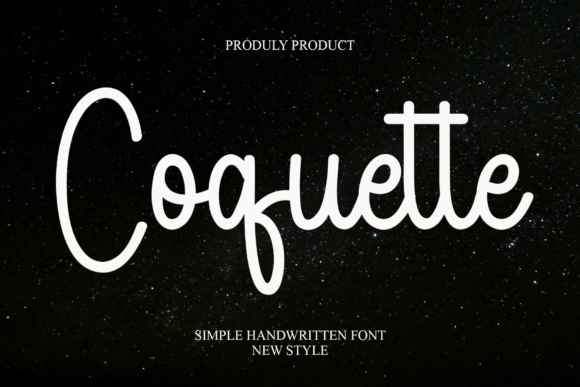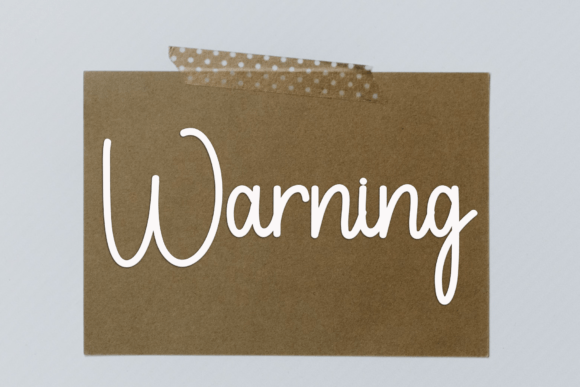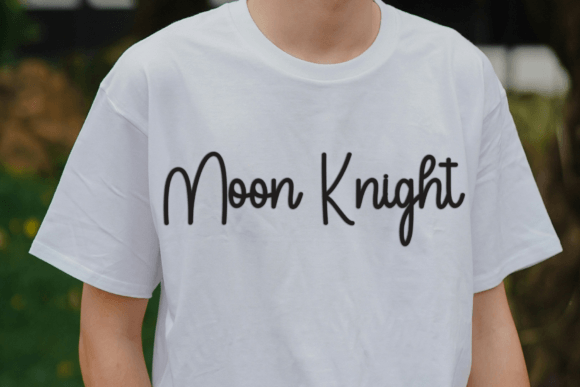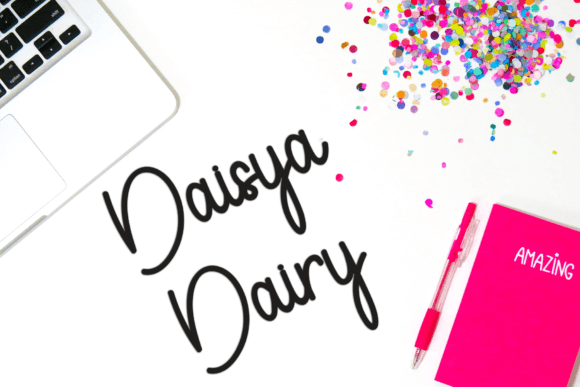
Coquette Font: A Cute Handwritten Font for Cricut & DIY Projects
About the Coquette Font
Experience the unique personality of Coquette Font, a font designed for impact. Coquette is a sweet and friendly handwritten font. Its natural and unique style makes it incredibly fitting to a large pool of designs. The only limit is your imagination.
Coquette’s friendly, informal style makes it ideal for projects requiring a touch of playful charm. It excels in headlines, short text blocks on invitations or greeting cards, and branding elements where a handwritten feel adds personality. Consider it for logos, social media graphics, or packaging designs for products targeting a younger, female demographic. Avoid using Coquette for body text or long paragraphs; its informal nature makes extended reading difficult.
Pairing Coquette with a clean sans-serif like Open Sans for body copy or a classic serif like Garamond for more formal elements creates effective visual balance. A geometric sans-serif could also work, adding a modern contrast to Coquette’s organic strokes.
Its core personality is undeniably cheerful and approachable, lending itself well to brands focused on sweetness, femininity, and handcrafted aesthetics. Avoid pairing it with overly heavy or aggressive fonts, as this would clash with its delicate nature.
Coquette Font Usage Examples
Coquette Font Example